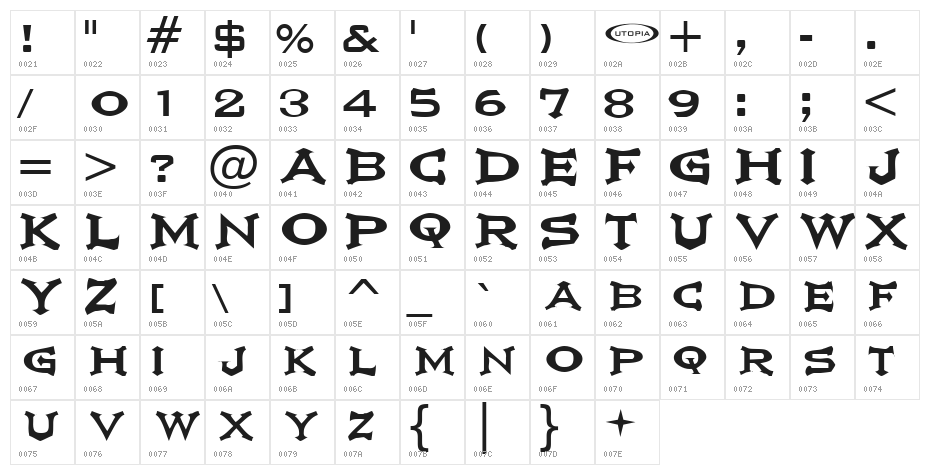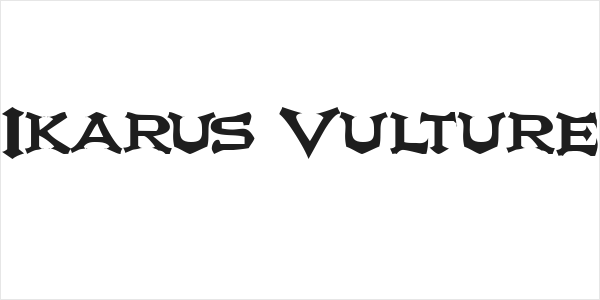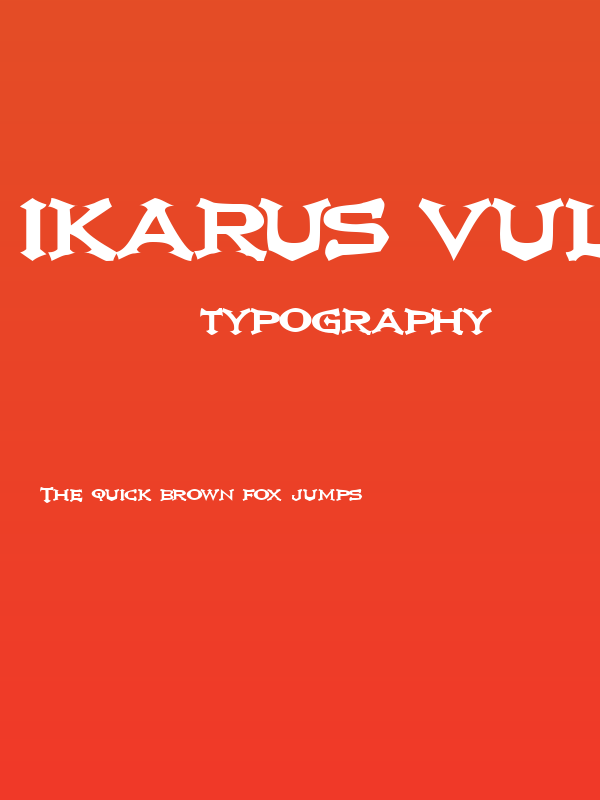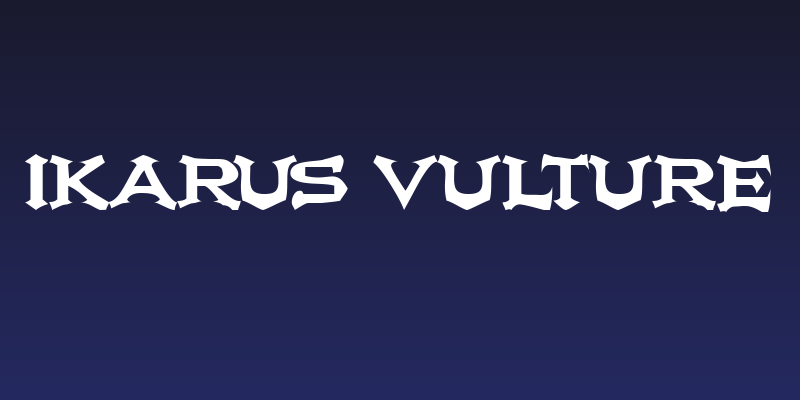
Ikarus Vulture Font
Ikarus Vulture Description
This font features a bold and striking design with sharp, angular edges and a gothic influence. The uppercase and lowercase letters maintain a consistent style, characterized by their pointed serifs and dramatic flair. The numbers are equally bold, with a unique curvature that complements the overall aesthetic. Special characters are designed with the same attention to detail, making them stand out in any composition. This font's distinct style is ideal for projects that require a strong visual impact.
| Overall Style | Gothic, Decorative |
| Proposed Projects | Ideal for branding, posters, album covers, and any project needing a bold, impactful typeface. |